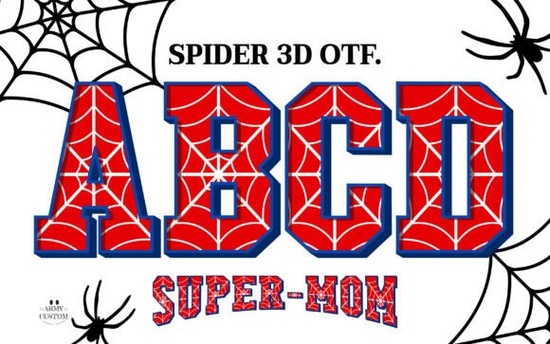
When you need a typeface that immediately grabs attention for a comic book cover, a Halloween promotion, or a superhero-themed event, the Spider 3d Font is a fantastic choice. This typeface brings a bold, three-dimensional spiderweb aesthetic to your text, making it perfect for projects that need a touch of mystery or action. Whether you are designing a logo for a gaming channel or creating custom apparel, this font gives your lettering a striking, woven texture that stands out on any background.
How does a 3D spiderweb font improve comic or superhero projects?
Comic book covers and superhero graphics rely heavily on dynamic typography to convey action and energy. A standard flat font often falls short when you need your main title to pop off the page. The three-dimensional effect built into this typeface adds instant depth. You do not have to spend hours manually adding drop shadows or bevels in your design software. The intricate web-like details woven into each letter naturally draw the eye, making it ideal for:
- Comic book covers that need a bold, action-packed title.
- Event posters for Halloween, cosplay conventions, or comic cons.
- Gaming thumbnails where high contrast and 3D text perform best.
By using a typeface that already has built-in texture and depth, you save time during the design process while keeping the visual impact high.
Can crafters and POD sellers use this font for physical products?
What are the best ways to pair this font with other styles?
Because the lettering is highly detailed and visually heavy, pairing it correctly is crucial for readability. If you use a similarly complex font for your body text or subtitles, the design will look cluttered and confuse the reader. Here are a few pairing strategies that work well:
- Clean Sans-Serif: Use a simple, geometric sans-serif for subtitles and body text to let the main title shine.
- Classic Serif: A traditional serif font can create a nice contrast, giving a vintage comic book feel when combined with the 3D web effect.
- Handwritten Scripts: For a more personal touch on greeting cards or invitations, pair it with a casual, legible script for the secondary text.
Always leave plenty of negative space around your main title. The intricate web details need room to breathe so the texture remains clear and recognizable.
Quick Checklist for Using 3D Display Fonts
- Keep backgrounds simple: Use solid colors or very subtle gradients behind the text so the 3D web texture stands out.
Take a few minutes to experiment with different colors and background contrasts before finalizing your project. A simple color tweak can make the woven details pop even more and ensure your final design looks exactly how you envisioned it.